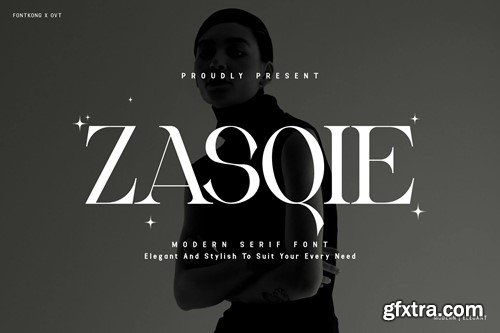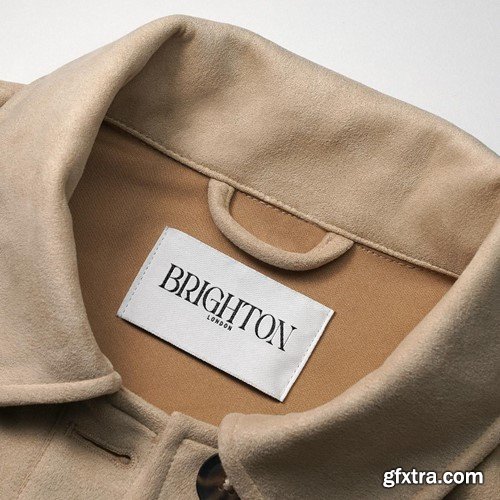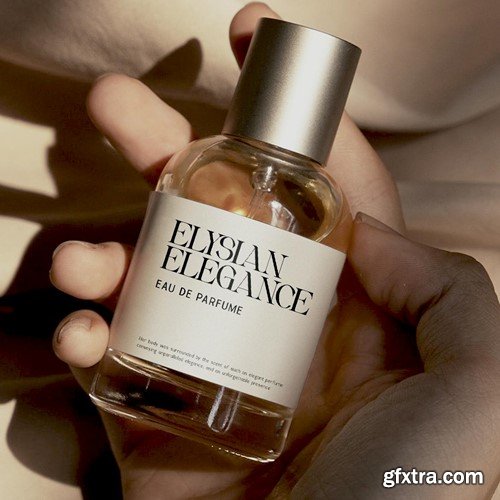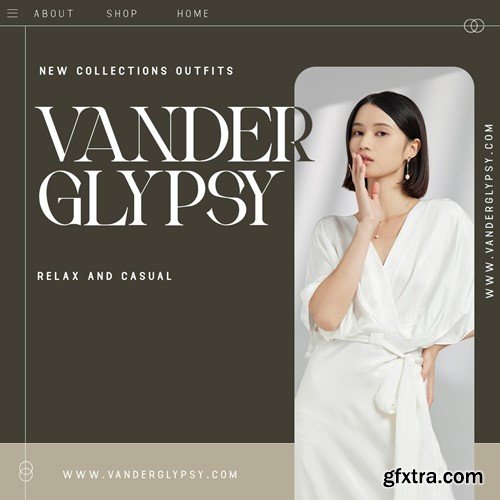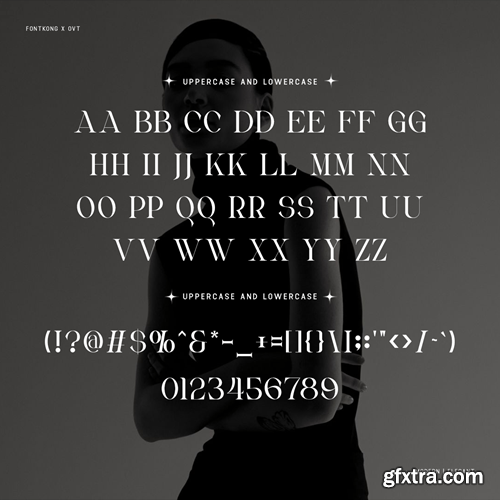
Zasqie - Modern Serif Font Introduce a touch of sophistication to your design projects with "Zasqie," a modern serif font that combines classic elegance with a contemporary edge. Zasqie is crafted for versatility and beauty, making it ideal for a broad spectrum of applications, from high-end branding to detailed editorial work. You will receive the font files in TTF, OTF, and WOFF formats Featuring clean, well-defined serifs and a balanced structure, Zasqie delivers exceptional readability and a stylish aesthetic that elevates any text. It’s perfect for creating compelling headlines, elegant print materials, and sophisticated web presence. The typeface includes a comprehensive set of weights, true italics, numerals, punctuation, and supports a wide range of languages, enhancing its utility in international projects. Whether you're working on luxury brand packaging, bespoke publications, or impactful advertising, Zasqie ensures your projects stand out with its refined and modern flair. Its classic yet fresh look is designed to capture attention and leave a lasting impression. Zasqie is the modern serif font you need to infuse your design work with refined typography and modern grace.